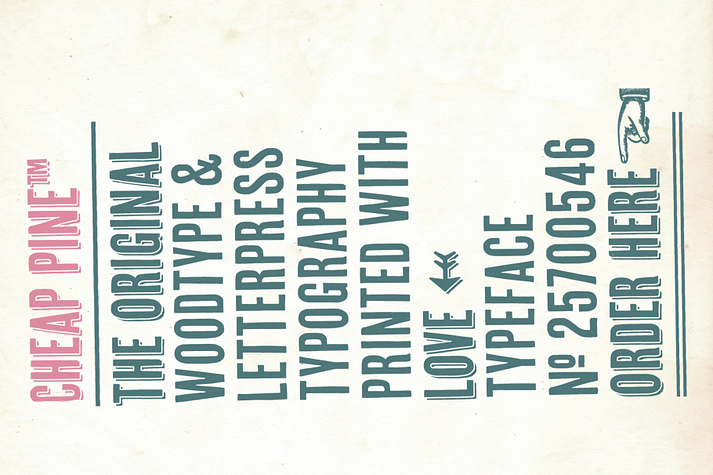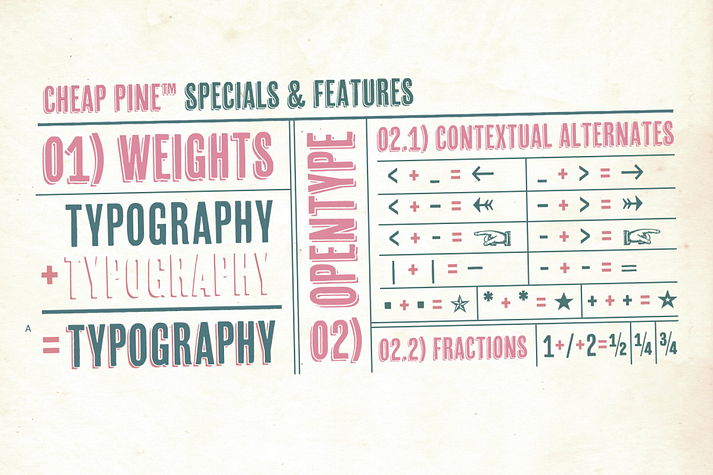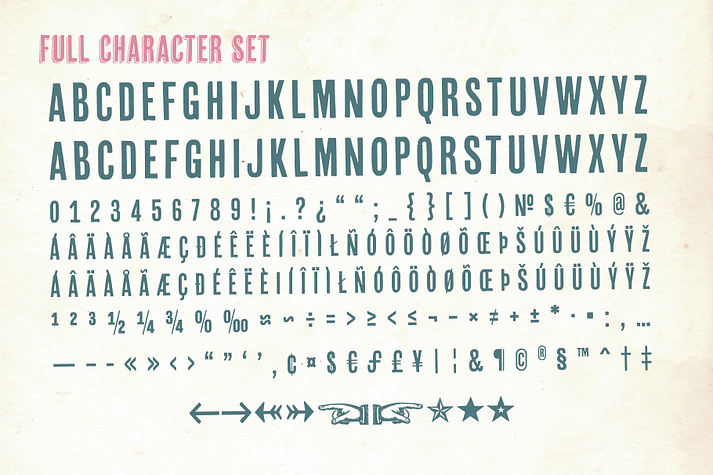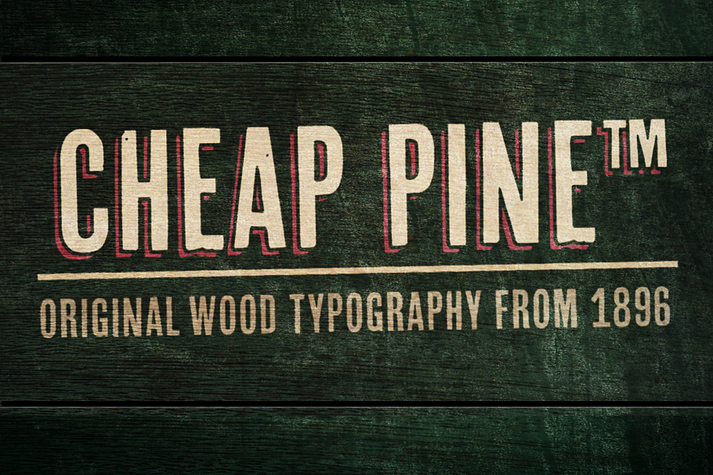
CHEAP PINE
Cheap Pine is a display sans font family. This typeface has three styles and was published by HVD Fonts.
Cheap Pine is a nice one weight typeface in upper case. It is a roughly drawn, condensed font and has a printed hand made appearance. Cheap Pine is a tribute to the wood type of the eighteenth century and nineteenth century. You can use Cheap Pine Sans & Cheap Pine Shadow together to influence the color of the shadows. The font contains arrows, hands, stars and other special glyphs available through the OpenType ligatures feature.